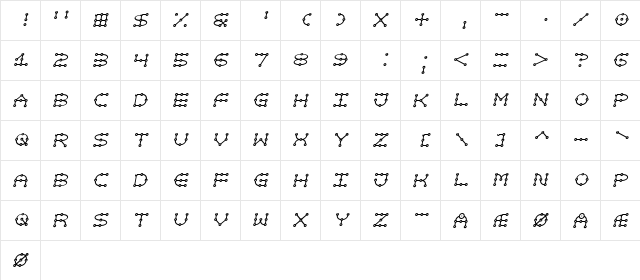
Not just a toy Regular
Design Context for Not just a toy Typeface
Not just a toy is a composed and adaptable typeface that performs quietly and consistently across a wide range of design contexts.